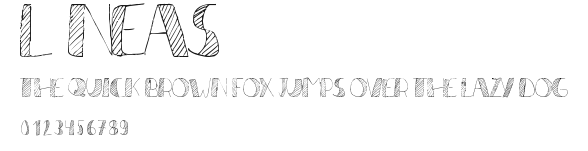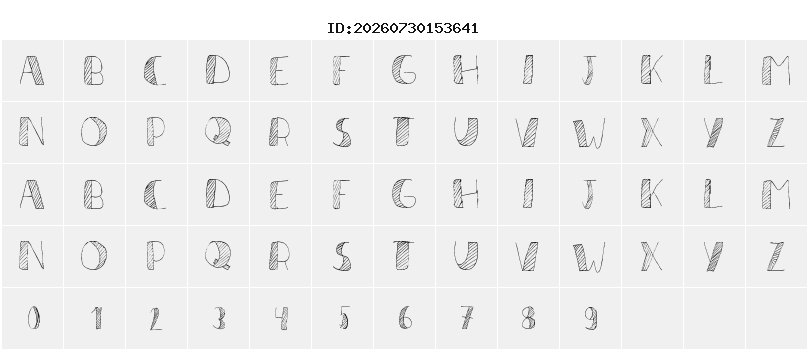
• Font Name: Líneas
• Full Font Name: Líneas
• Version: Version 1.00 July 23, 2016, initial release
About Líneas.ttf
Líneas.ttf is a modern, elegant sans-serif font designed for ultimate readability and visual harmony. Perfect for branding, headlines, web design, and print materials.